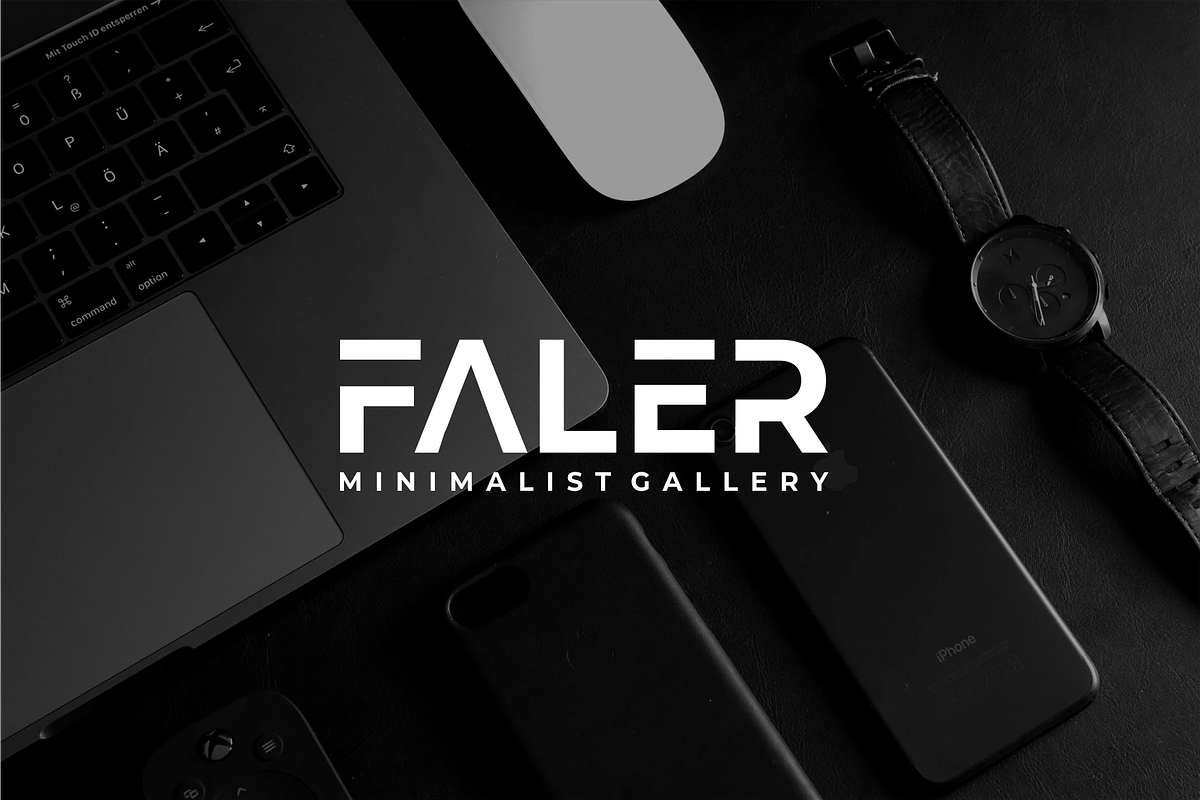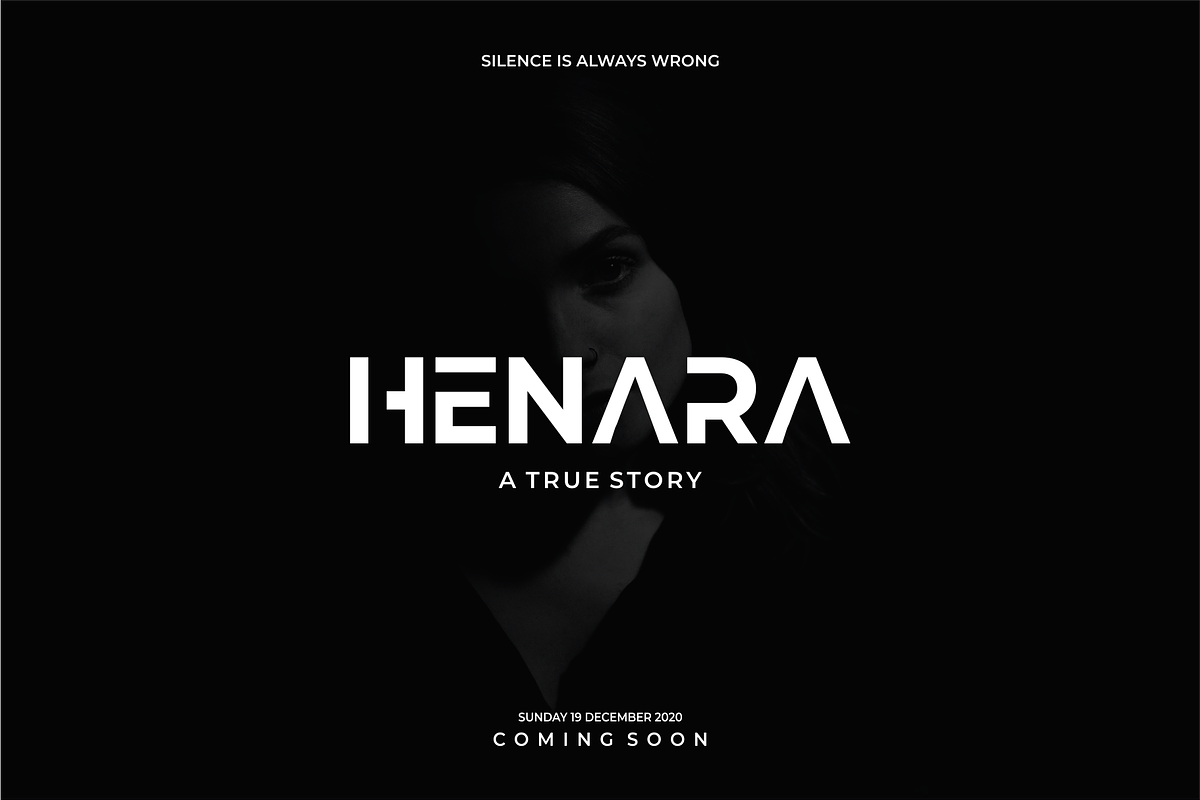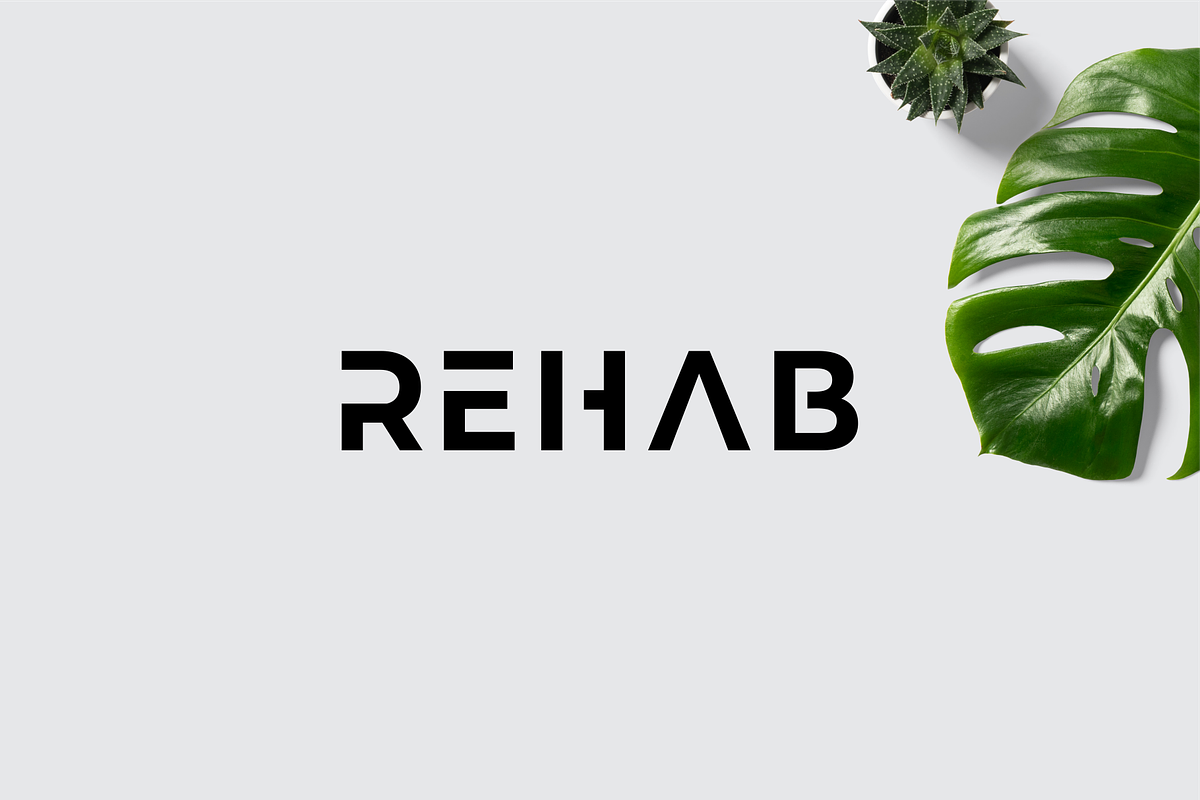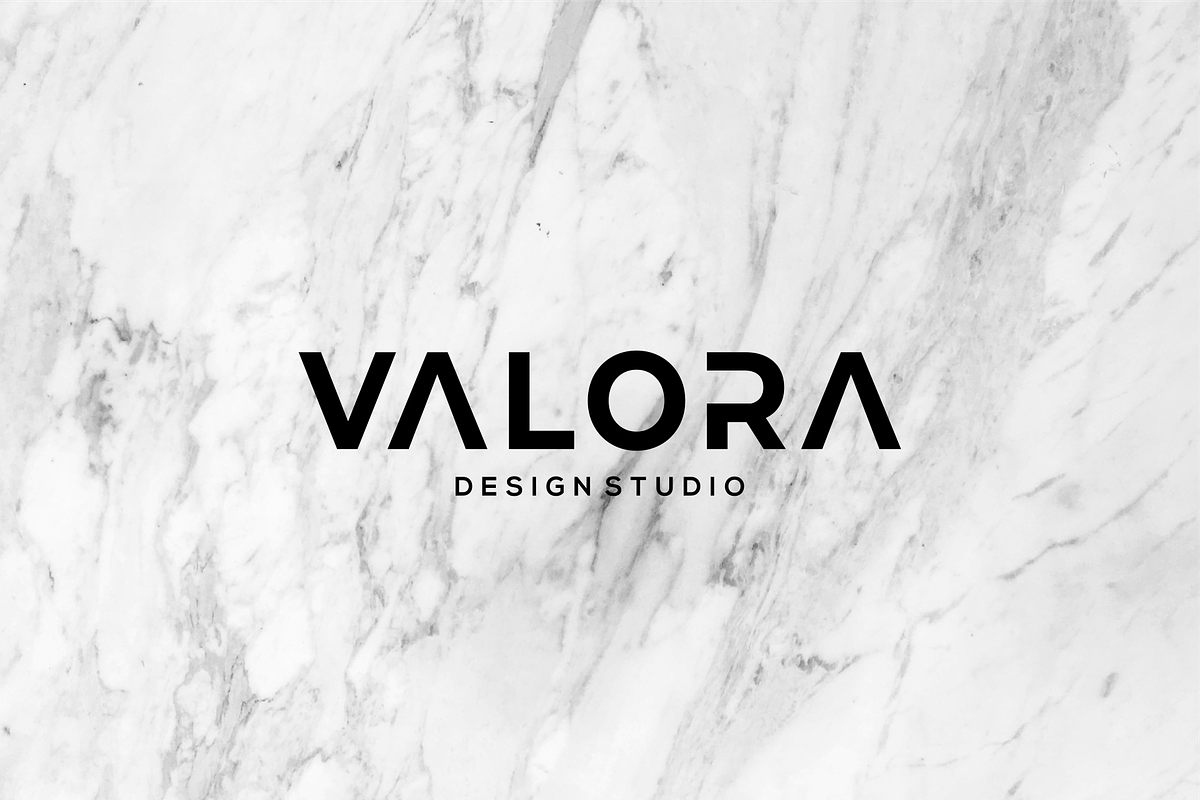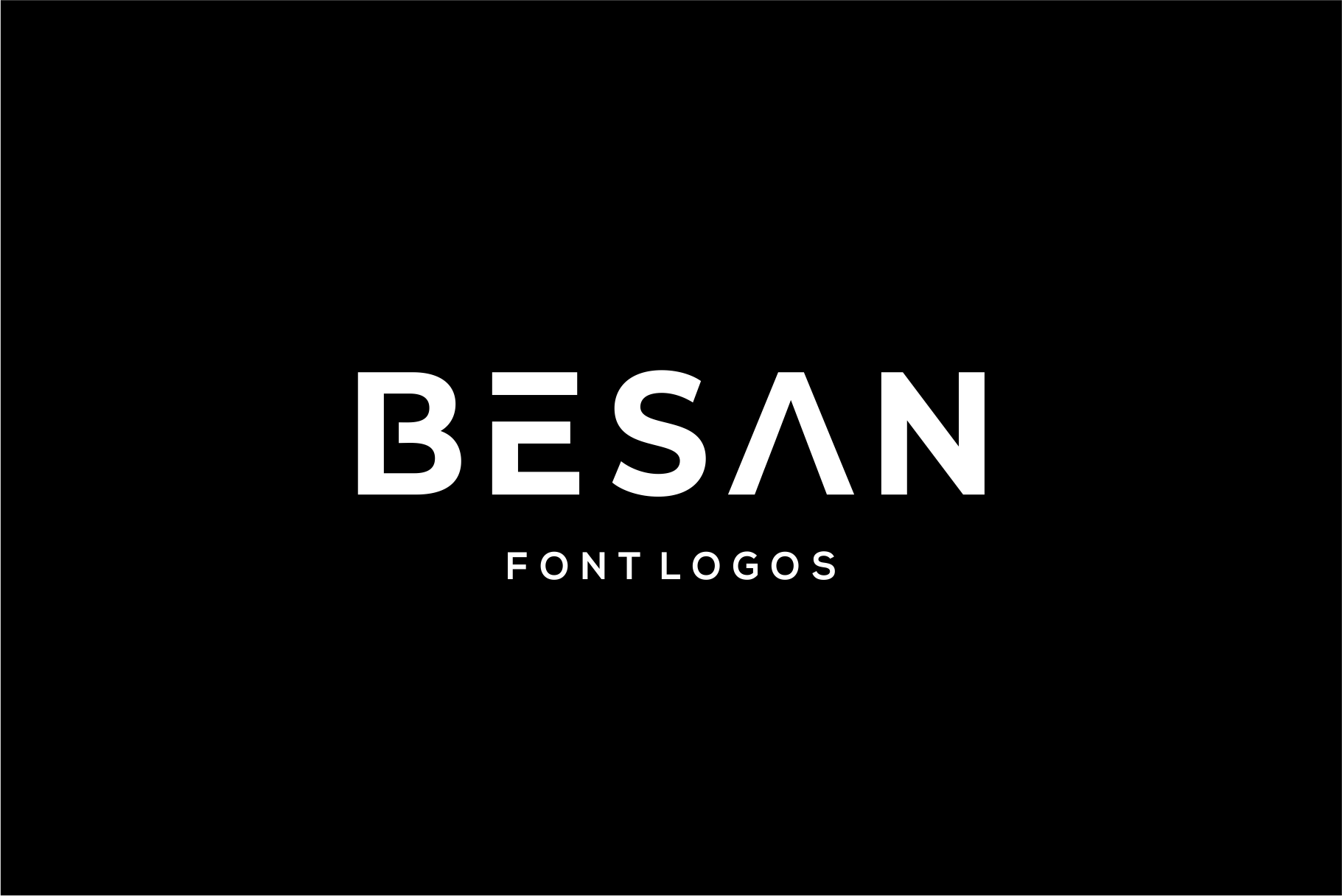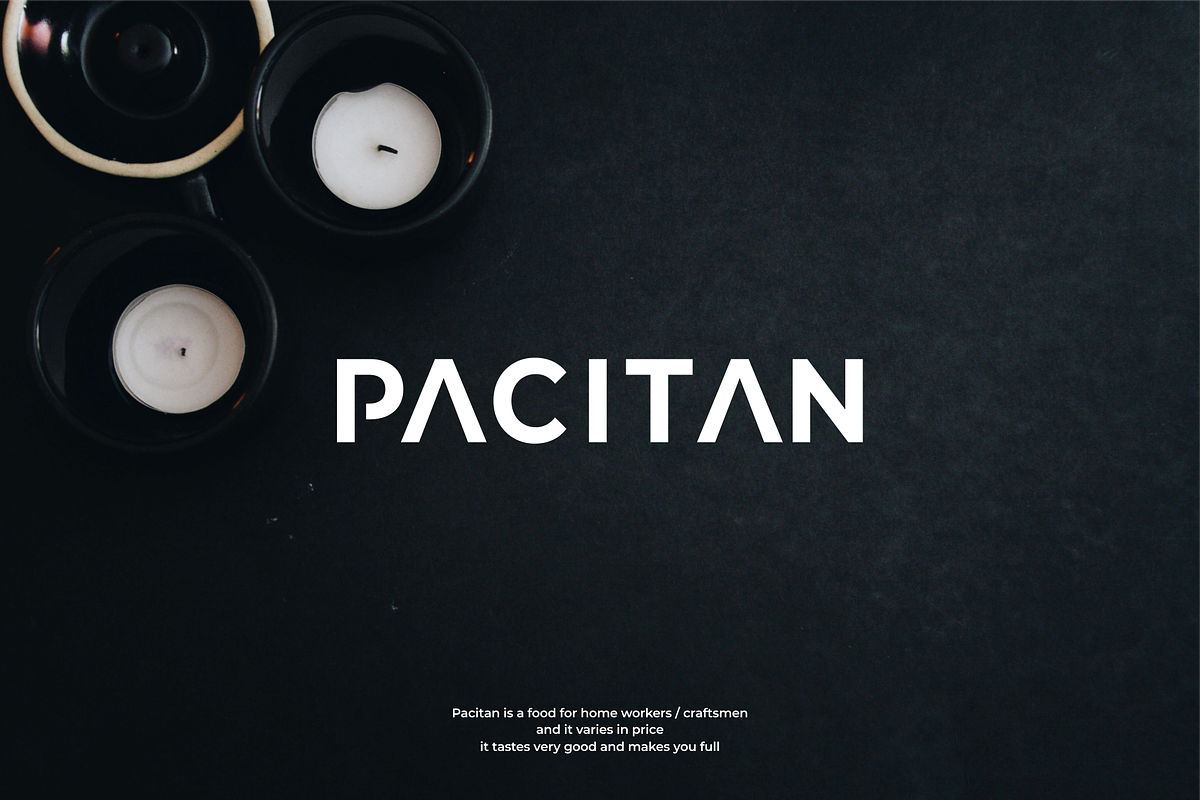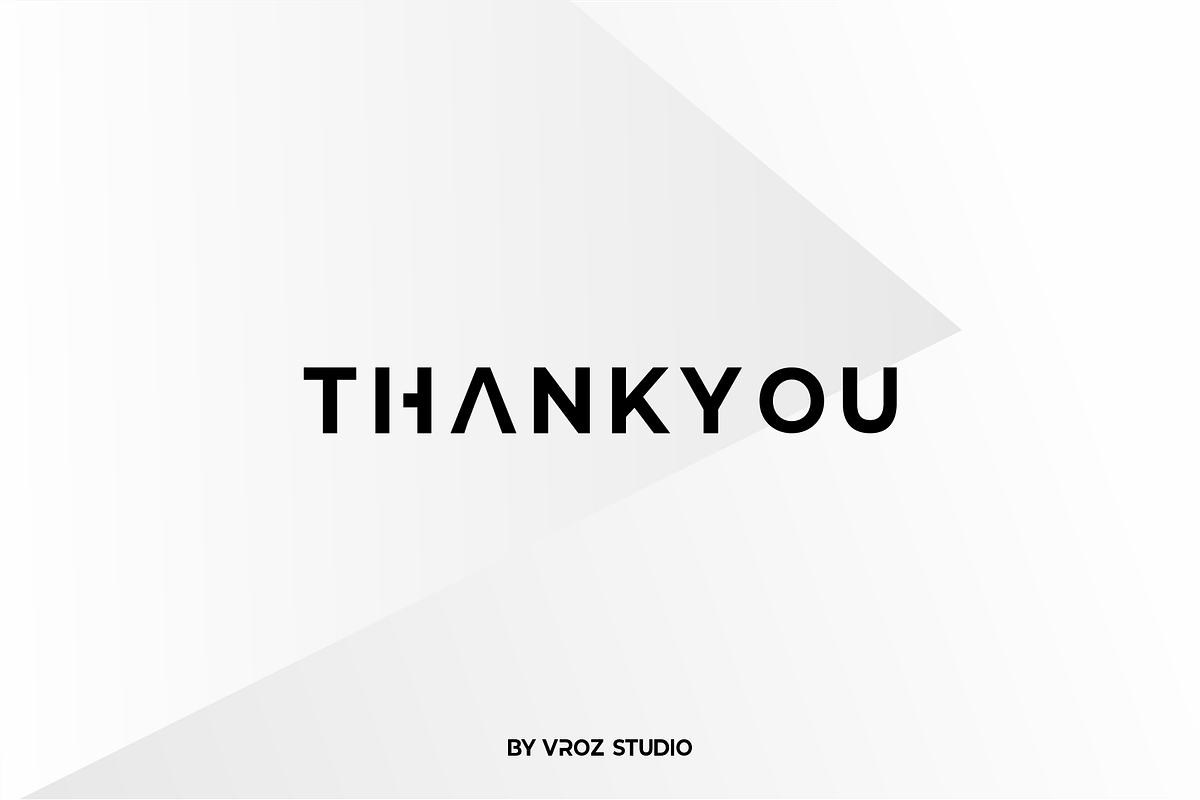
BESAN - Font for logo
BESAN is a new font for design of minimalistic logos. The font is suitable for creating word marks, titles, taglines. This font is perfect for those of you who like a minimalist and clean design